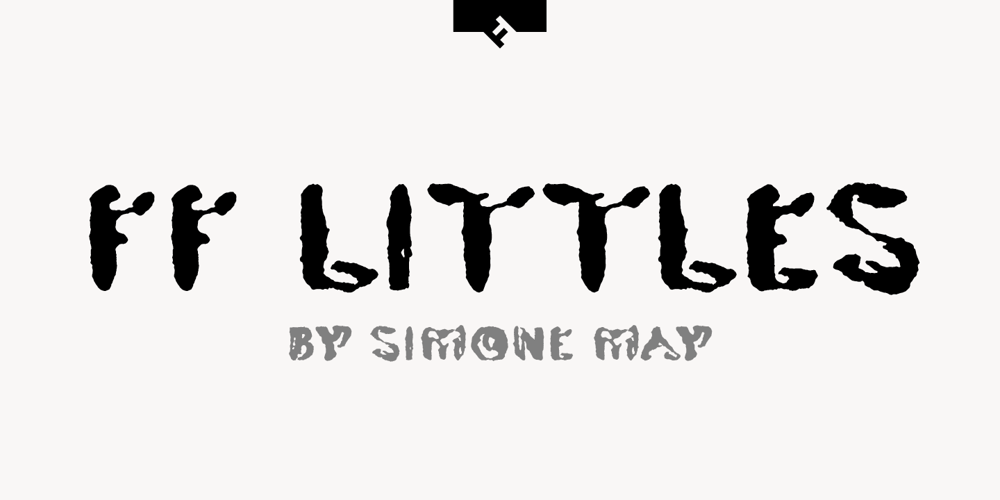
FF Littles Font Family was designed by Simone May and published by FontFont. FF Littles contains 1 styles and family package options. German type designer Simone May created this display FontFont in 1995. The font is ideally suited for poster and billboards. FF Littles provides advanced typographical support with features such as ligatures. It comes with proportional lining figures.